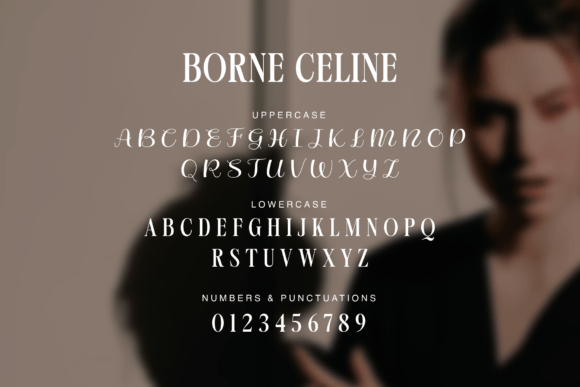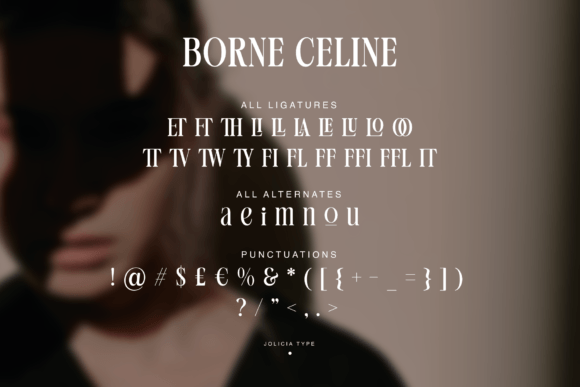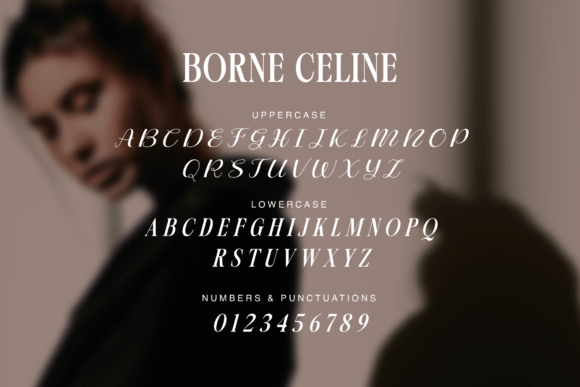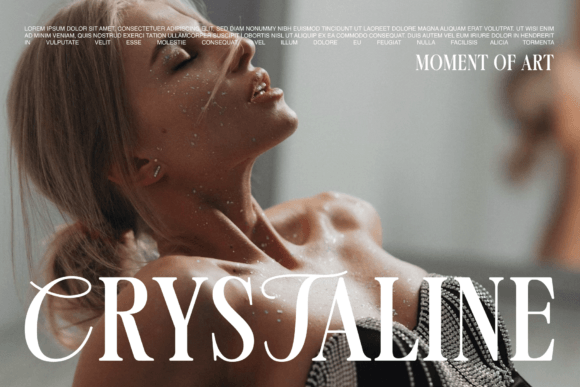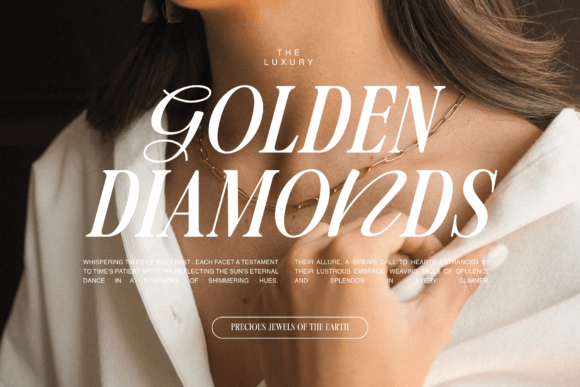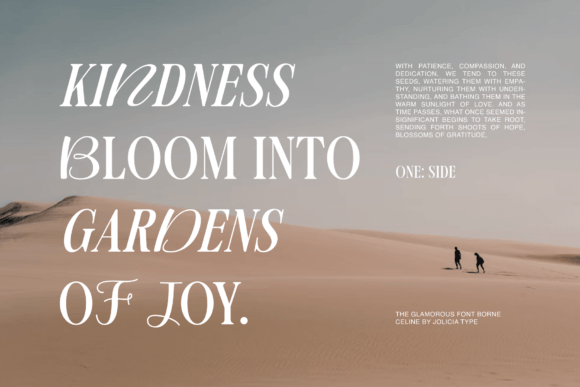
A Touch of Parisian Elegance: Unveiling the Borne Celine Font
Have you ever found yourself lost in the intricate details of a beautifully designed invitation, wondering what makes it so captivating? Perhaps it’s the way the font seems to dance across the page, or the subtle nuances that evoke a sense of sophistication. For designers, crafting such moments is an art form, and one that requires the perfect tool to bring their vision to life.
Enter the Borne Celine Font, a meticulously crafted serif font that embodies the essence of Parisian chic. With its elegant blend of traditional and modern elements, this font offers designers a wealth of creative possibilities, from refined branding materials to stylish editorial layouts. By incorporating the Borne Celine Font into your next project, you’ll be able to lend a touch of refinement and individuality that sets your work apart from the rest.
Borne Celine Font Key Features
- Unique Characteristics: This font features a unique blend of modern and elegant design elements, with subtle flair and sophistication, making it perfect for creating a professional and polished look.
Borne Celine Font Review
As a designer, I was excited to try out the Borne Celine font. Overall, I was impressed with its elegant and sophisticated design. ✨ The font’s curves and lines work well together to create a sense of fluidity and modernity. It’s perfect for creating a luxurious and high-end feel in your designs.
- ✨ Elegant and sophisticated design
- ✨ Perfect for creating a luxurious and high-end feel
- ✨ Modern and fluid curves and lines
- ✨ Works well for headings, titles, and body text
However, I did encounter some limitations while using the Borne Celine font. ⚠️ The font is quite dense, which can make it difficult to read in certain contexts. Additionally, the font’s weight and line height can be quite heavy, which may not be suitable for all designs.
- ⚠️ Dense font may be difficult to read in certain contexts
- ⚠️ Heavy weight and line height may not be suitable for all designs
Overall, I would recommend the Borne Celine font for designs that require a luxurious and high-end feel. However, it’s essential to carefully consider the font’s limitations and ensure it’s used in a way that complements the design.
Getting the Most Out of the Borne Celine Font
To get the most out of the Borne Celine font, try combining it with bold or italic text to create visual interest. You can also experiment with different font sizes and colors to create a unique look.
The Borne Celine font is commonly used for:
- Editorial and magazine design
- Web design and digital marketing